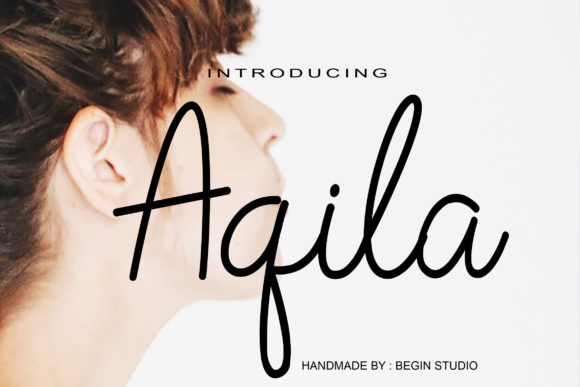
Aqila Font: Elevate Your Designs with Elegance and Sophistication
In the world of typography, fonts play a crucial role in conveying the tone and personality of a design. For designers and crafters looking to add a touch of elegance and sophistication to their work, the Aqila font is an excellent choice. This beautiful, handwritten signature font is designed to give your designs a striking yet refined look that’s sure to capture attention.
The Aqila Font: A Handwritten Signature Font
The Aqila font is a typical handwritten signature font that exudes a sense of luxury and refinement. Its flowing lines and delicate curves give it a unique, personal touch that’s perfect for adding a touch of elegance to any design. Whether you’re working on a logo, invitation, or branding project, the Aqila font is sure to make a lasting impression.
Key Features of the Aqila Font
- Elegant and Refined: The Aqila font features a sophisticated, handwritten style that’s perfect for designs that require a touch of luxury.
- Striking yet Subtle: The font’s unique lines and curves make it stand out without overpowering the rest of the design.
- Versatile: The Aqila font can be used for a wide range of design projects, from logos and invitations to branding and packaging.
- Handwritten Signature Style: The font’s handwritten signature style gives it a personal, one-of-a-kind feel that’s sure to add a touch of personality to any design.
Uses for the Aqila Font
The Aqila font is incredibly versatile and can be used for a wide range of design projects. Here are a few ideas to get you started:
- Logos: Use the Aqila font to create a sophisticated, elegant logo that’s sure to make a lasting impression.
- Invitations: Add a touch of luxury to your invitations with the Aqila font, perfect for weddings, galas, and other formal events.
- Branding: Use the Aqila font to create a cohesive brand identity that’s both elegant and refined.
- Packaging: Add a touch of sophistication to your packaging with the Aqila font, perfect for high-end products and luxury brands.
The Aqila font is a beautiful, elegant handwritten signature font that’s perfect for designers and crafters looking to add a touch of sophistication to their work. With its unique lines and curves, this font is sure to make a lasting impression. Whether you’re working on a logo, invitation, or branding project, the Aqila font is an excellent choice. So why not give it a try and see the difference it can make in your designs?